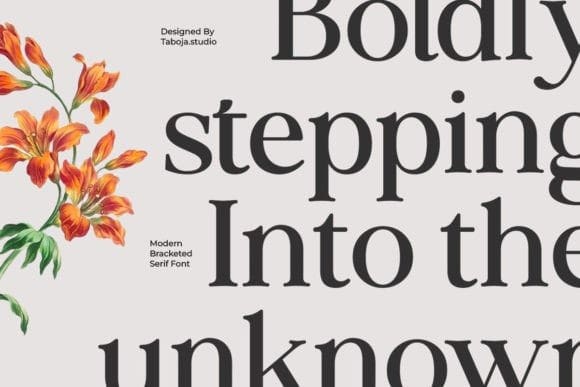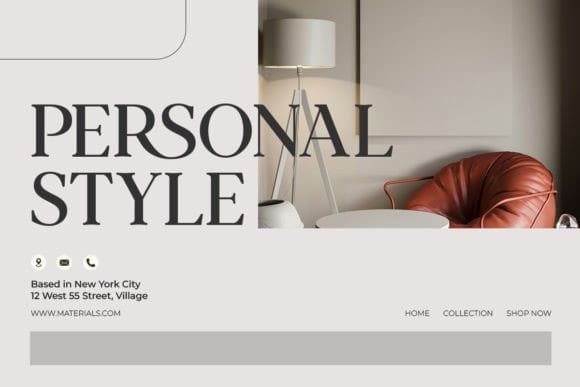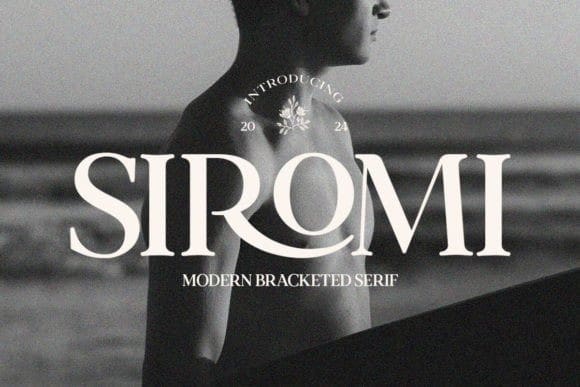
Siromi Font
Siromi Font – Modern Bracketed Serif is a contemporary typeface exuding sophistication and versatility. Its sleek lines and distinctive bracketed serifs offer a modern twist on classic typography, making it ideal for a wide range of design purposes.
Whether it’s for branding, editorial layouts, or digital presentations, Siromi Font adds a touch of elegance and professionalism to any project. With its balanced proportions and attention to detail, Siromi stands out as a refined choice for designers seeking a modern yet timeless font solution.